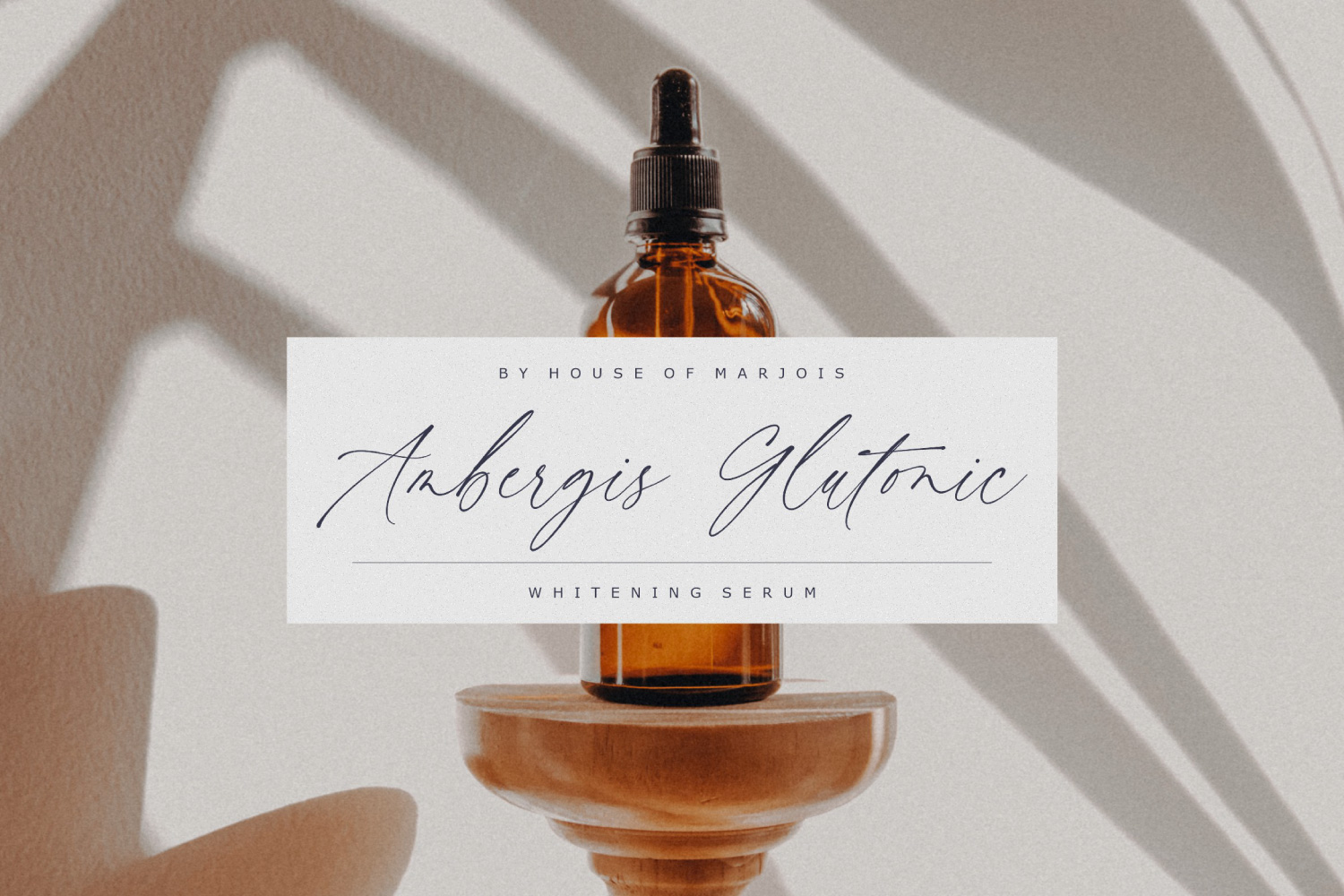
Ms. Pianist A Modern Handwritten Font
It’s natural handwriting, made for chic elegant design. A modern and minimal typeface packed with handwritten swashes and ligatures. With its modern and natural look, Ms. Pianist brings a luxurious and clean style to websites, wedding stationery, logos, social media quotes, branding identity, and many more.